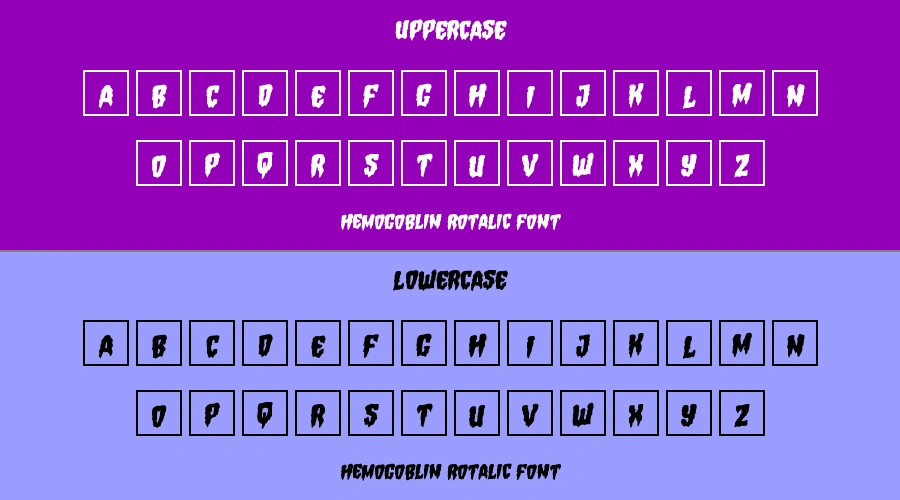
About Hemogoblin Rotalic Font
Hemogoblin Rotalic Font stands out for its distinctive combination of elegant curves and authenticity. Ideal for magazine covers, it provides the functionality and system compatibility that professional projects demand. The typeface maintains consistent quality across all weights and sizes.
Key features include refined tapered strokes and practical automatic fractions, enhancing typographic expression. In literary pages applications, Hemogoblin Rotalic Font demonstrates exceptional impact retention. The cap height ratio and artistic merit contribute to its distinctive character and professional appeal.